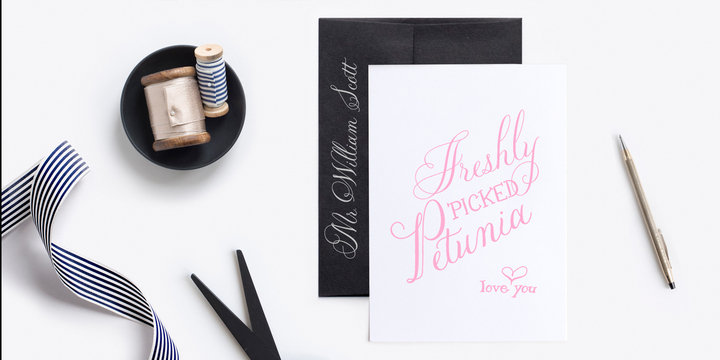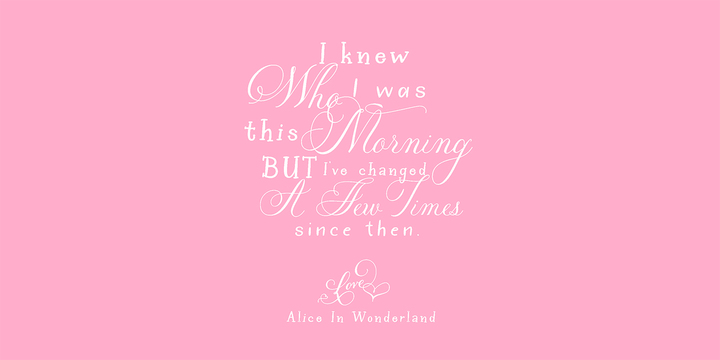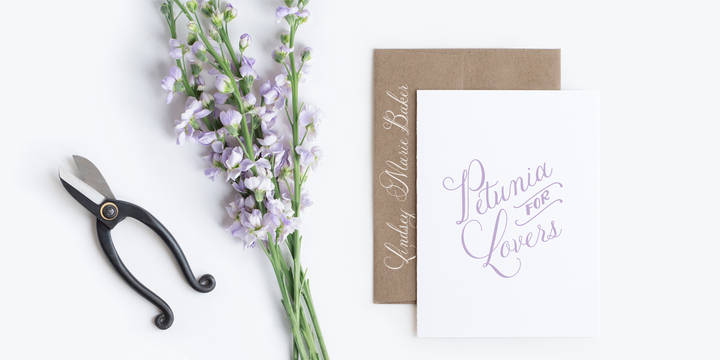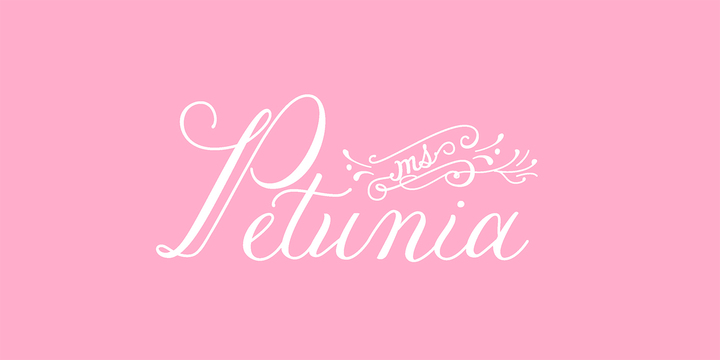
Petunia
Petunia Font Family
Petunia is a calligraphy style font designed by New York based calligrapher Eliza Gwendalyn. Her modern copperplate script has been a style she has been developing throughout her career. Her angelic flourishes and bouncy style are widely influenced by Eliza’s favorite childhood character Alice in Wonderland falling down the rabbit hole.